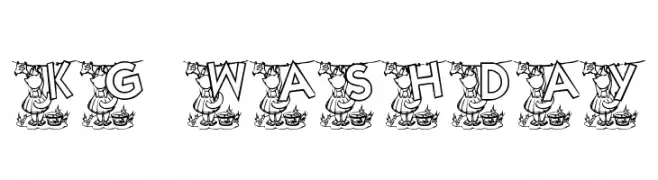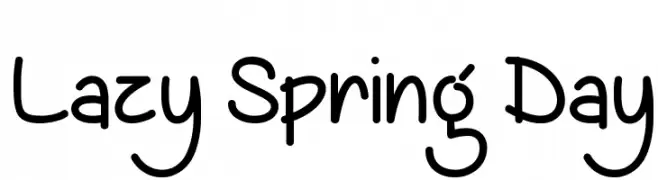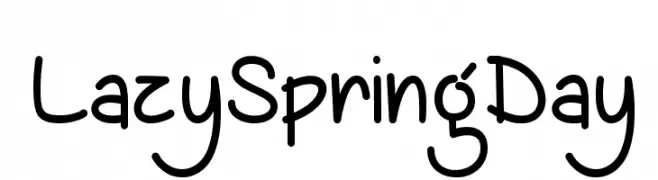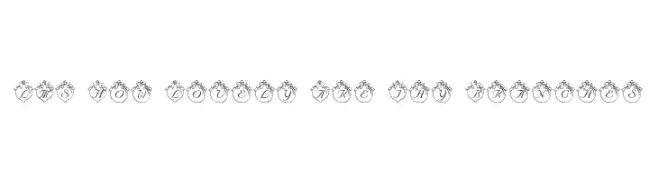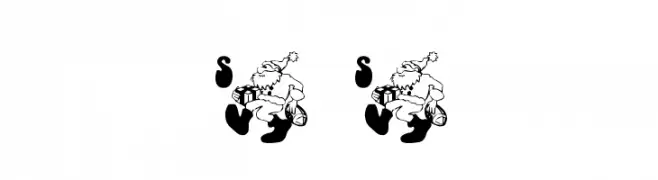
• Shleppin' Santa
A festive, decorative font featuring Santa Claus illustrations with each character.
• kg bday1
A festive, decorative font with birthday-themed elements.
• KG SNOWANGEL
A festive serif font with integrated snowmen, perfect for holiday designs.
• KG WASHDAY
A playful, decorative font with letters hanging on a clothesline, ideal for creative projects.
• Red Nose Day
A bold, hand-drawn display font with playful, irregular shapes.
• LMS Holly Jolly Christmas
A festive, decorative font with holly motifs, perfect for holiday themes.
• LMS How Lovely Are Thy Branches
A decorative, holiday-themed font with script letters inside ornate ornaments.
• Lazy Spring Day
A playful, handwritten font with rounded edges and a casual, friendly vibe.
• LazySpringDay
A playful, handwritten font with rounded edges and a whimsical style.
• 101! Christmas KookieZ 1
A festive font with characters inside bell-shaped outlines, perfect for holiday themes.